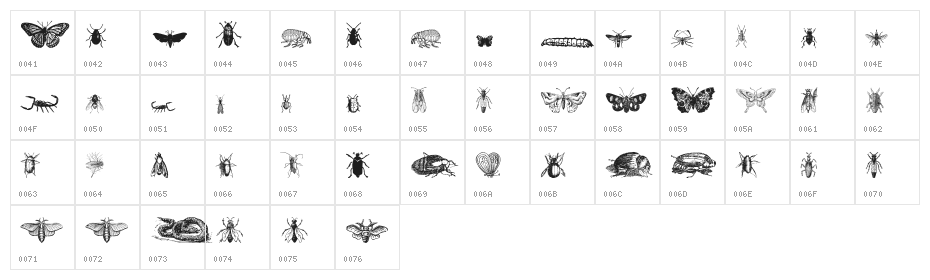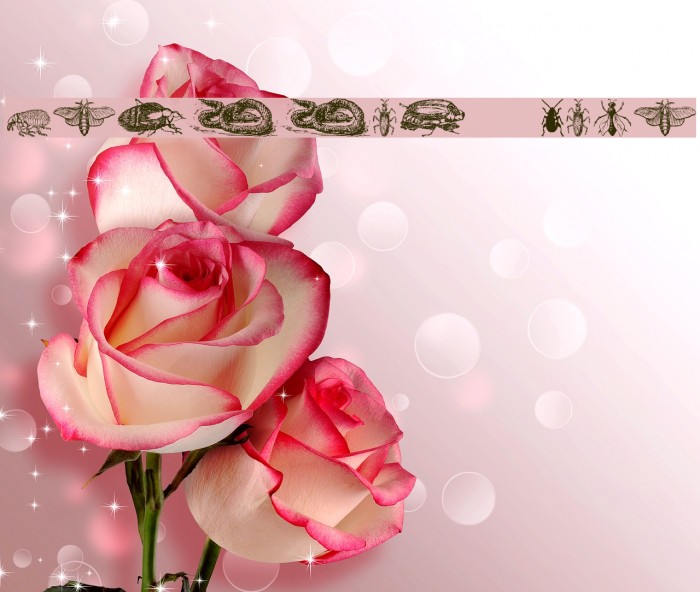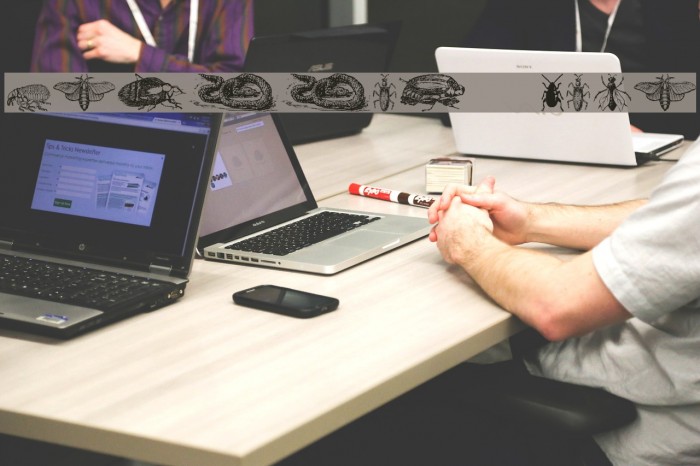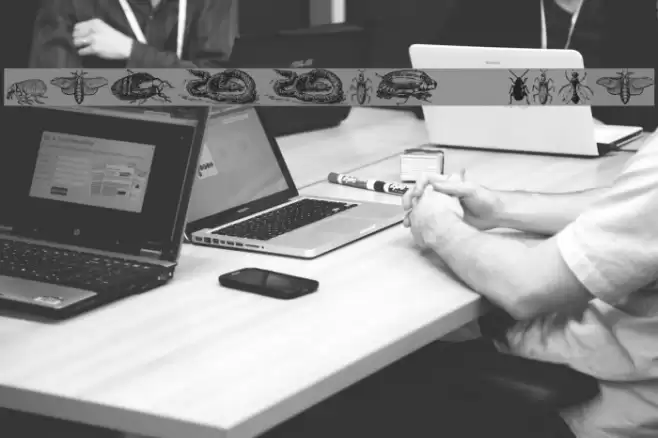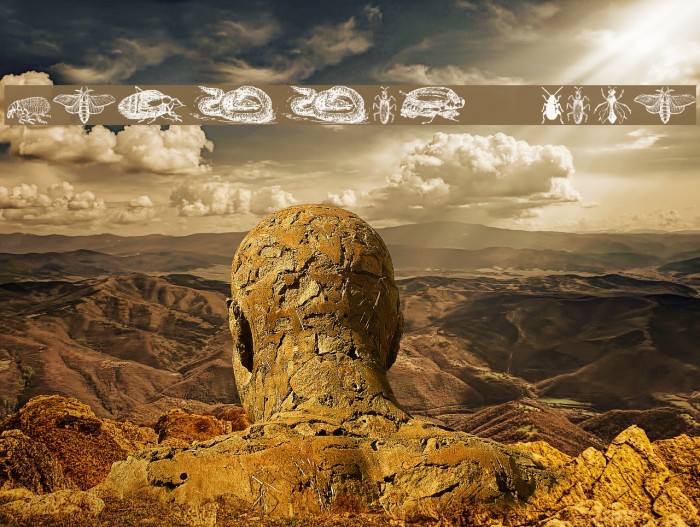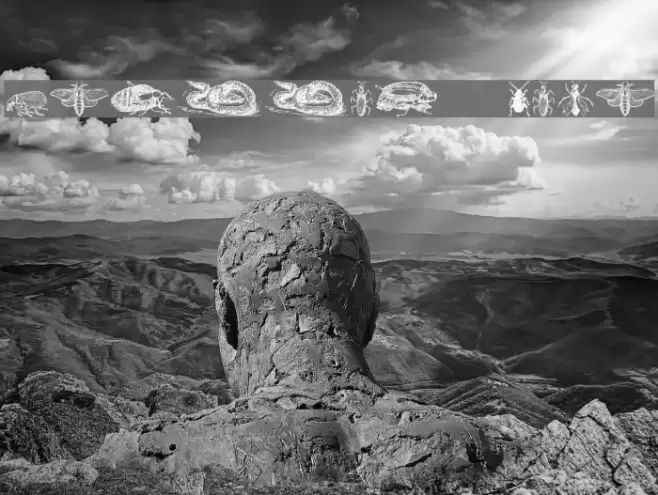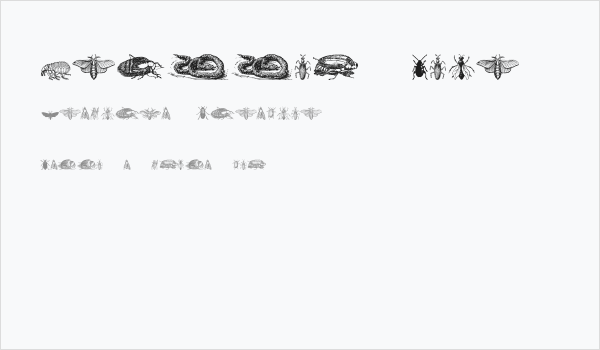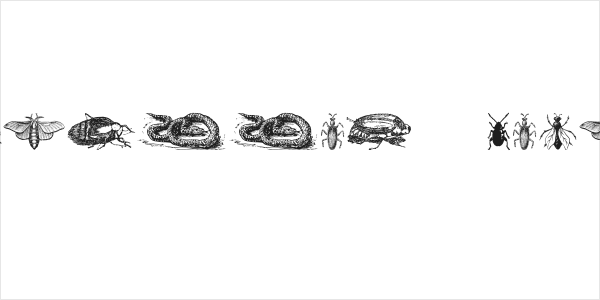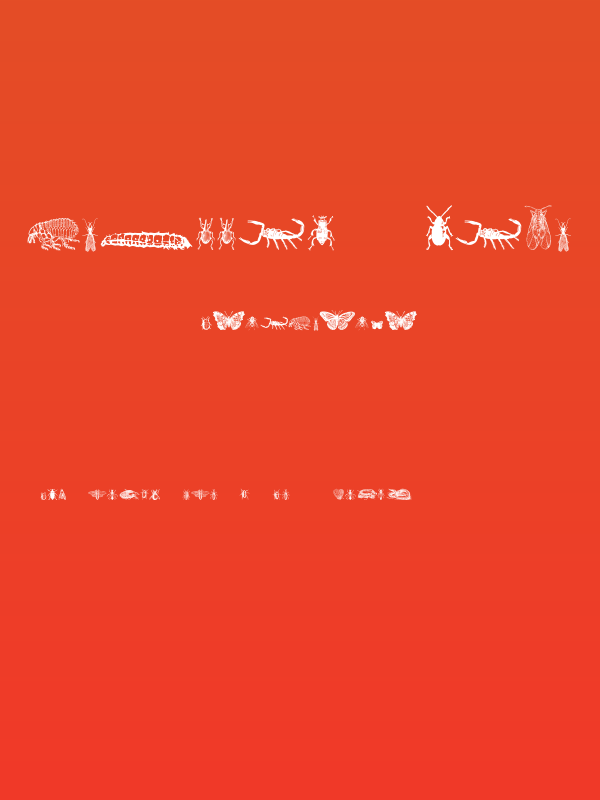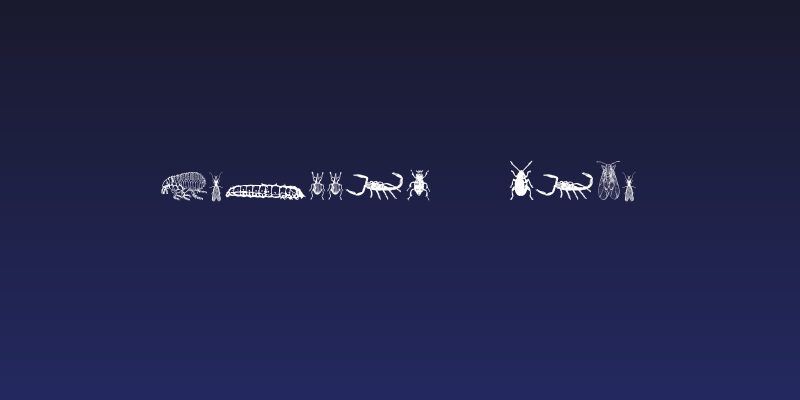
Grissom Four Font
Grissom Four Description
A decorative display set featuring detailed, vintage-style illustrations of various insects and small animals in place of traditional alphanumeric characters and symbols. Each glyph is a unique, intricate drawing, evoking an old scientific or naturalist illustration aesthetic.
| Overall Style | Vintage, Decorative |
| Use Case | Logos, Decorative headings, Posters, Art prints |
| Proposed Projects | Nature-themed posters, educational materials, book covers, decorative headings, art projects. |